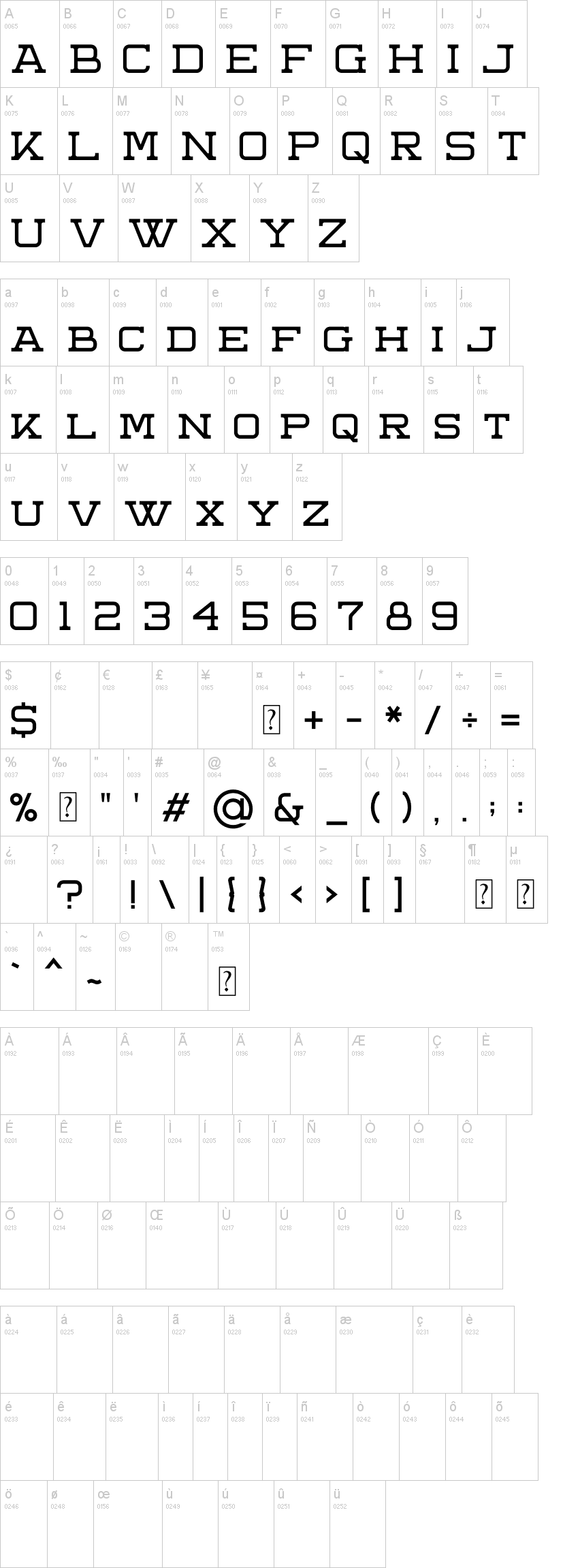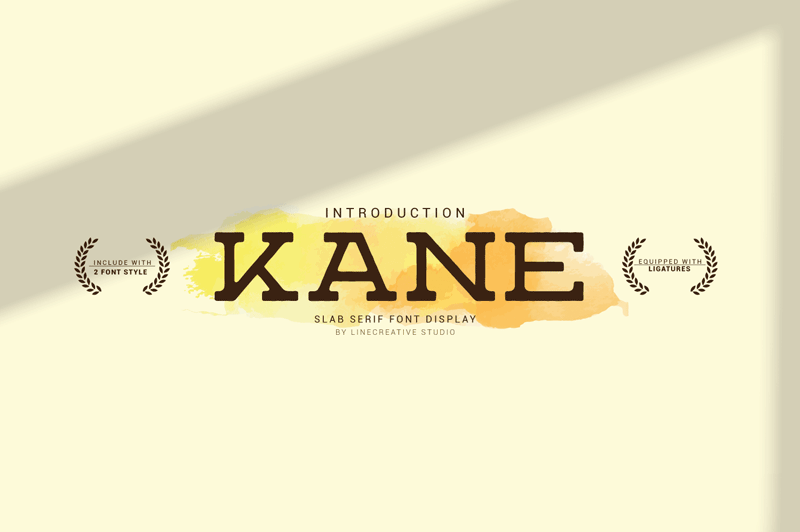
Kane Stamp Style.otfNote of the authorKane is a slab-serif font that gives the impression of being clean and very elegant. This font supports a supporting language: Latin Western Europe.
and also equipped with ligature,So it gives a design without limits